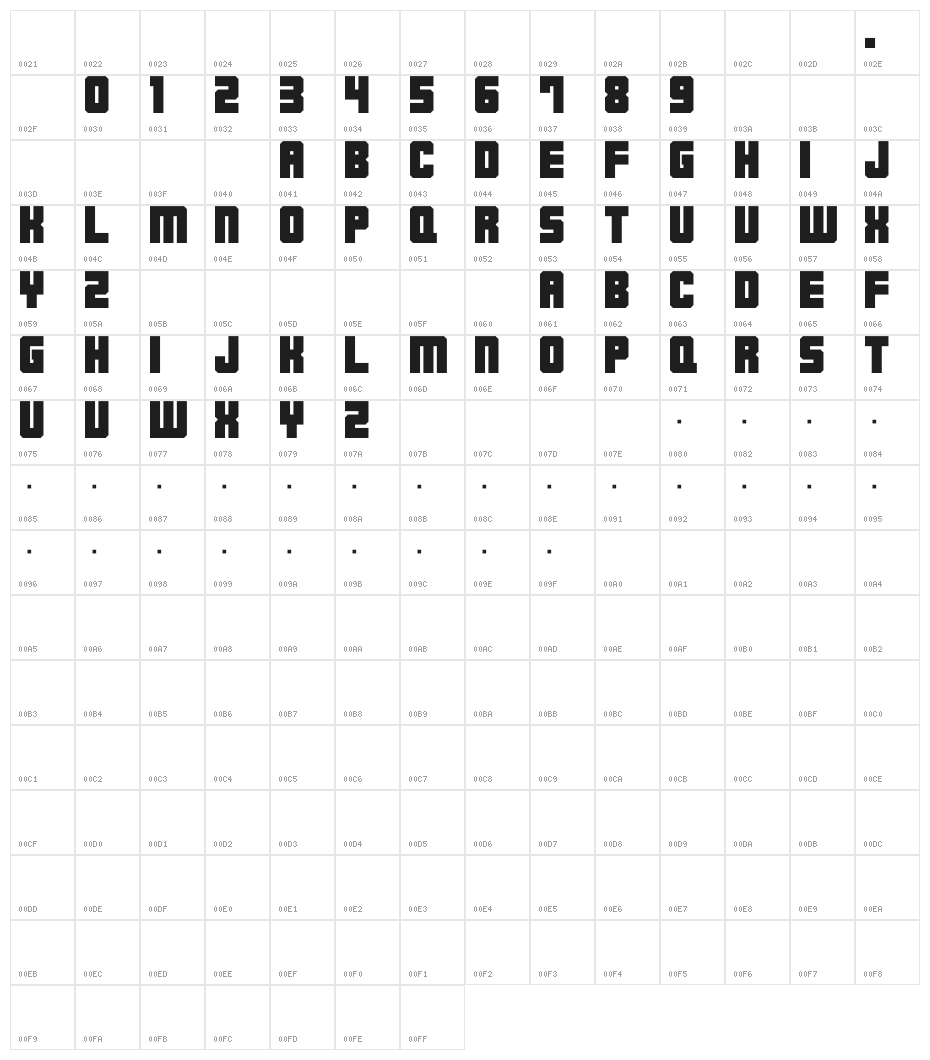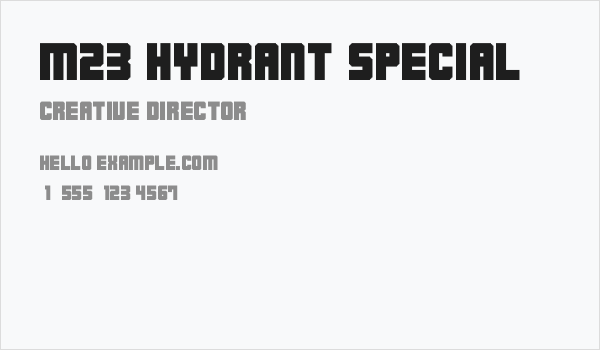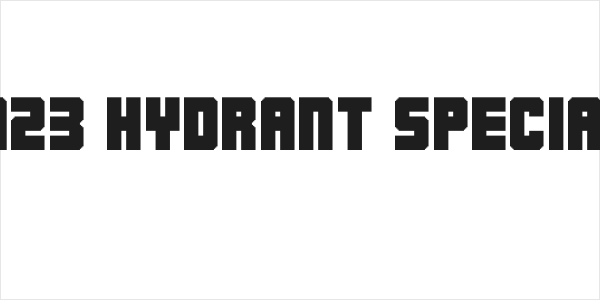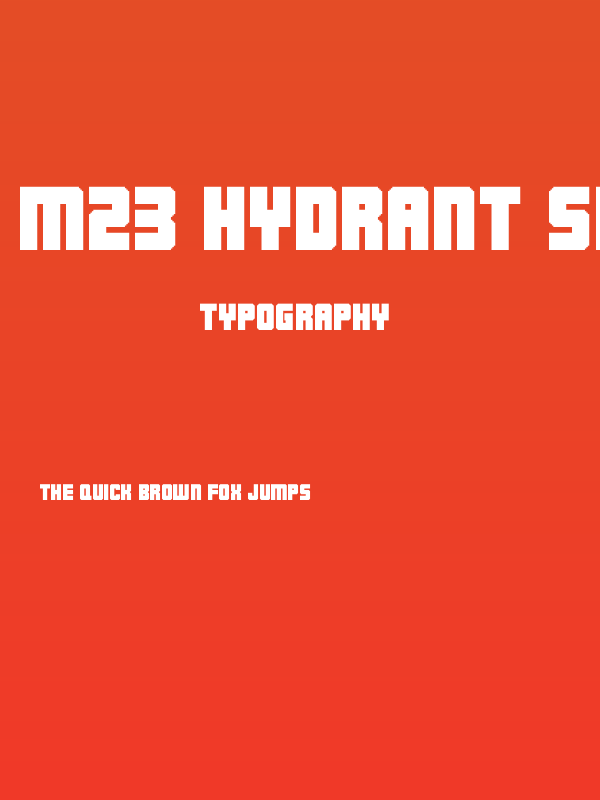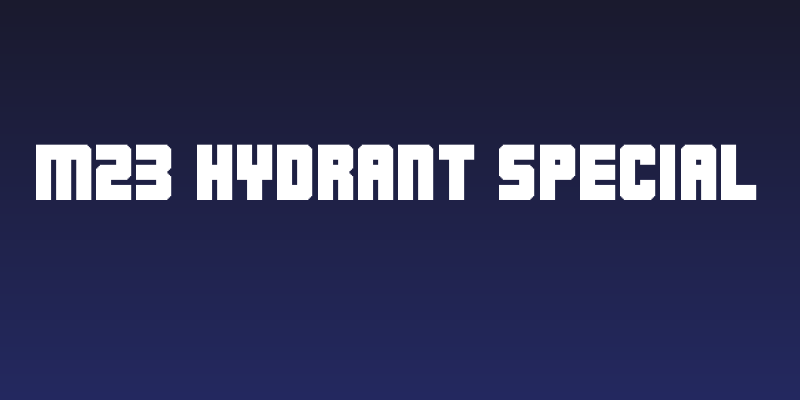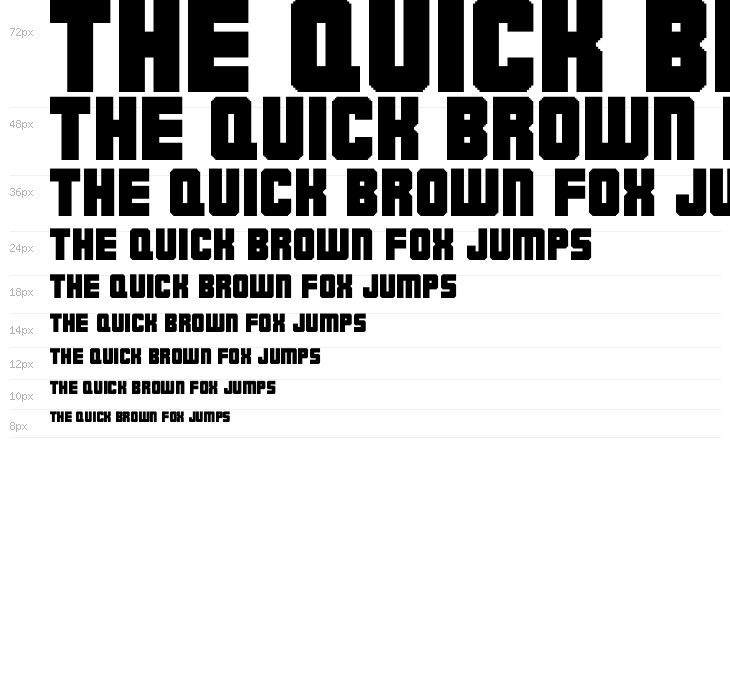
M23_HYDRANT SPECIAL Font
M23_HYDRANT SPECIAL Description
This font features a bold, geometric design with strong, block-like characters. The uppercase letters are uniform in height, creating a cohesive and powerful visual impact. The numbers and special characters maintain the same boldness, ensuring consistency across all text elements. The font's thick strokes and angular edges give it a modern, industrial feel, making it ideal for attention-grabbing headlines and signage. Its robust structure ensures readability from a distance, while the lack of serifs adds to its contemporary aesthetic.